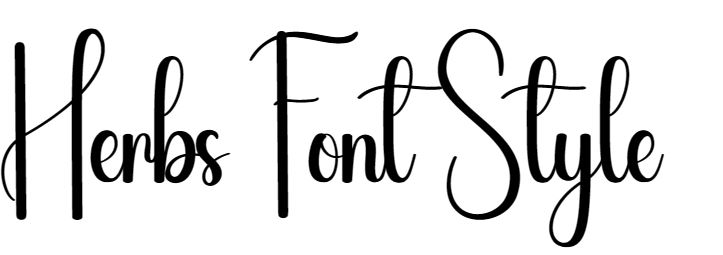
Herbs
Herbs is a handwritten font. It has a casual, written-with-a-pen look that makes designs feel personal. You can download it for free and test it with your own words in the preview above.
You get every letter from A to Z in both cases and all the numbers from 0 to 9, which means Herbs can handle full sentences, dates and prices. Common punctuation such as &, !, ? and @ is included as well. It also has the accented letters you need for Spanish, French, German, Portuguese and Italian.
Herbs is a natural fit for greeting cards, journal pages and friendly social posts. Its lowercase letters are small compared to the capitals, so set it a size or two bigger than usual. The file has no kerning data, so in logos and big titles check pairs like AV, To and Wa and tighten the spacing by hand. Set it a bit larger than you would a normal text font. Handwriting styles lose their charm once they get too small to read comfortably.
Yes. Herbs has ligatures that turn on by themselves in most design apps and browsers, so you don't need to do anything special.
Yes. Herbs includes the accented letters needed for Spanish, French, German, Portuguese and Italian, so it works for more than just English.